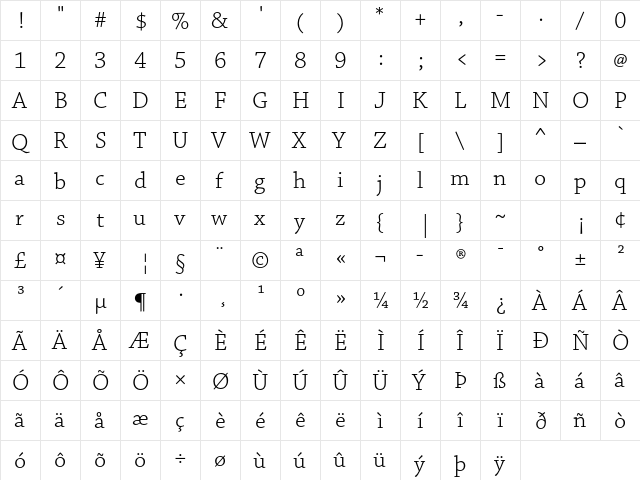
Chaparral Pro Light Caption
| Designer | Carol Twombly |
Design Context for Chaparral Pro Typeface
Chaparral Pro is a composed and adaptable typeface that performs quietly and consistently across a wide range of design contexts. Its slender proportions lend an understated elegance to any composition.